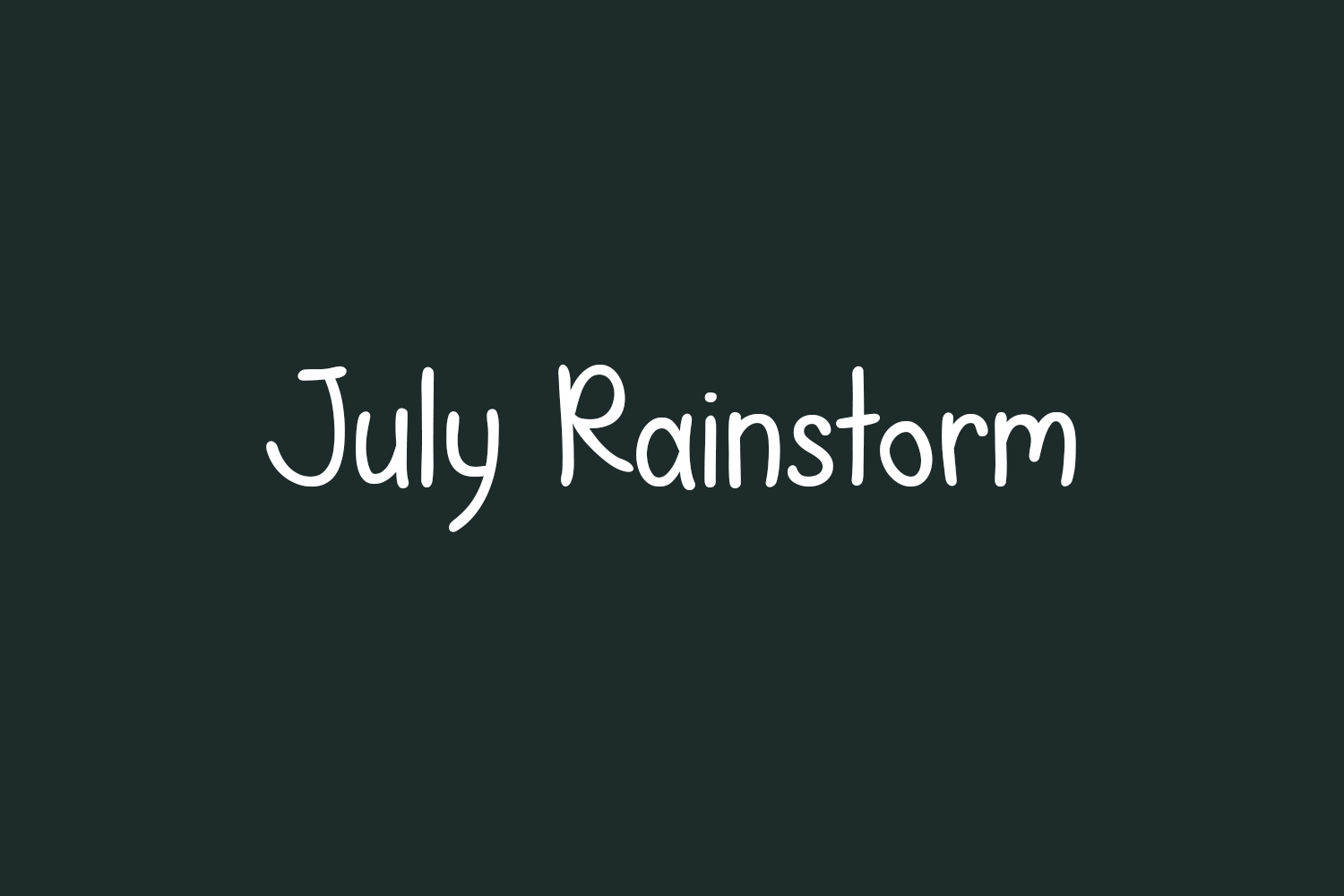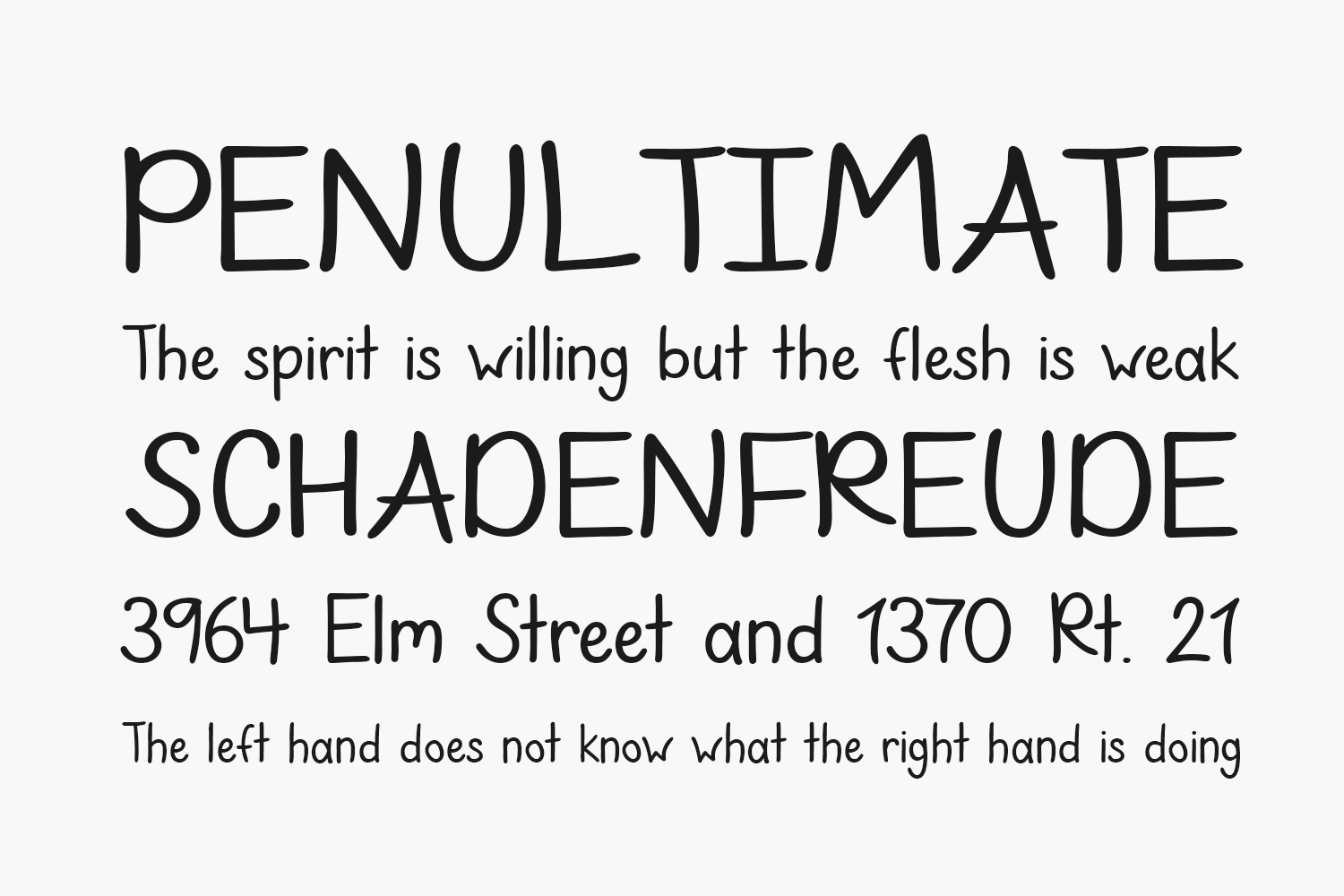
Experience the beauty of a summer rainstorm with July Rainstorm Free Font, an exquisite handwritten font. The fluid contours and asymmetrical borders of each character contribute to an exceptional and natural sensation. This font is an excellent means of infusing your designs with a personalized feel, whether it’s for wedding invitations or social media visuals. The delicate fluctuations in line thickness establish an organic, genuine appearance that elevates your text. Whether you aim to infuse a touch of playfulness or a hint of refinement into your project, July Rainstorm stands as the ultimate selection. Give it a try today and infuse your designs with a touch of summer rain magic. July Rainstorm Free Font is free for personal use only. Please purchase the full version for commercial use.